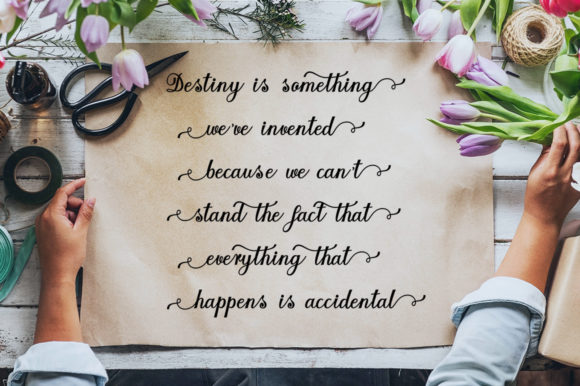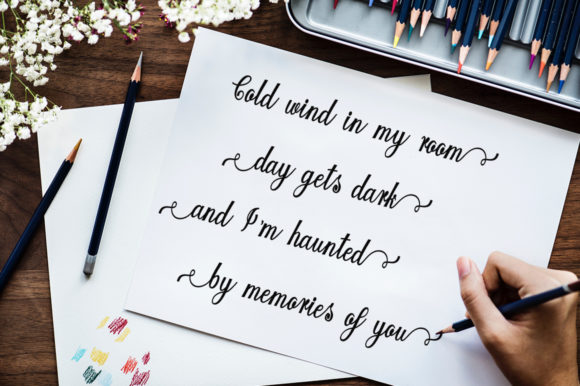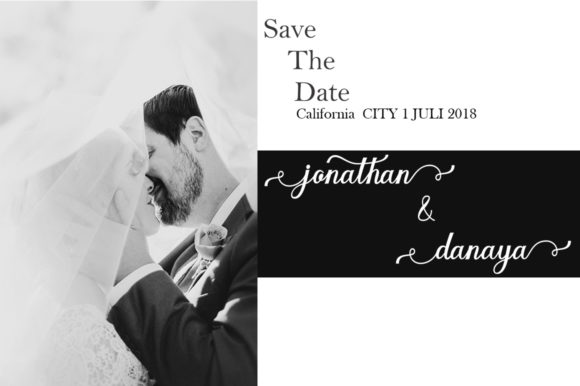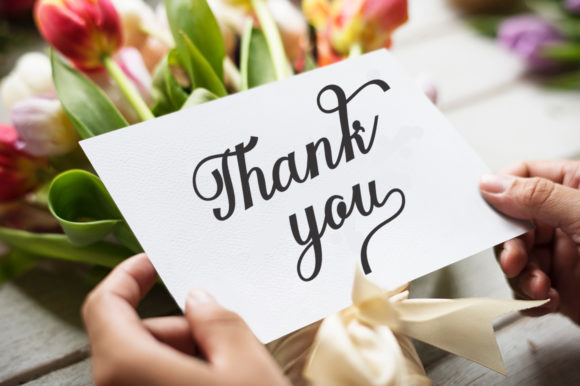
Bellinda Font: Elevate Your Designs with Elegant Modern Calligraphy
In the world of typography, few fonts manage to strike a balance between casual charm and elegant sophistication. The Bellinda font, a modern calligraphy script, is one such exceptional find. With its flowing lines, beautiful swashes, and versatile appeal, Bellinda has become a go-to choice for designers and crafters looking to add a touch of refinement to their projects. Whether you’re creating logos, product packaging, wedding invitations, or any other design that requires a personal touch, Bellinda is an excellent option to consider.
The Characteristics of Bellinda Font
Bellinda is characterized by its modern calligraphy style, which gives it a fresh yet timeless appeal. This font is not just about pretty letters; it’s about creating a mood and conveying emotion through typography. Here are some key features that make Bellinda stand out:
- Modern Calligraphy Script: Bellinda embodies the elegance of calligraphy with a modern twist, making it suitable for a wide range of design applications.
- Casual yet Elegant: The font strikes the perfect balance between being casual and sophisticated, making it versatile for various projects.
- Pretty Swashes: Swashes add a decorative touch to your text, and Bellinda includes a range of swashes that can be used to embellish your designs.
Uses of Bellinda Font
The versatility of Bellinda makes it suitable for numerous design purposes. Here are some popular uses of this beautiful font:
- Logos: Create a memorable brand identity with a custom logo that uses Bellinda’s elegant script.
- Product Packaging: Stand out on store shelves with packaging that features beautiful, eye-catching typography.
- Wedding Invitations: Add a touch of romance and sophistication to your wedding invitations and stationery.
- Social Media Graphics: Elevate your social media presence with custom graphics that incorporate the Bellinda font.
- Branding and Advertising: Consistency in branding is key, and Bellinda can help you achieve a cohesive look across all your marketing materials.
Tips for Using Bellinda Font Effectively
To get the most out of Bellinda, consider the following tips:
- Pair with Complementary Fonts: When using Bellinda alongside other fonts, choose fonts that complement its script style. A simple sans serif or serif font can create a nice contrast.
- Play with Swashes: Don’t be afraid to experiment with the swashes that come with Bellinda. They can add a unique touch to your designs.
- Consider the Context: Think about where and how your design will be used. For instance, a more elegant approach might be needed for luxury brands, while a playful take could work for creative businesses.
- Adjust Size and Color: The beauty of Bellinda can be enhanced by adjusting its size and color. Experiment with different sizes and color palettes to find what works best for your project.
Bellinda font offers a perfect blend of modern calligraphy and elegance, making it an excellent choice for designers and crafters. Its versatility and the inclusion of beautiful swashes allow for endless creativity, from logos and packaging to wedding invitations and more. By understanding its characteristics and experimenting with its use, you can elevate your designs and make them truly memorable.
Whether you’re a professional designer looking for a new font to add to your arsenal or a crafter seeking the perfect style for your DIY projects, Bellinda is definitely worth exploring. With its casual yet elegant vibe, it’s sure to inspire and enhance your creative endeavors.